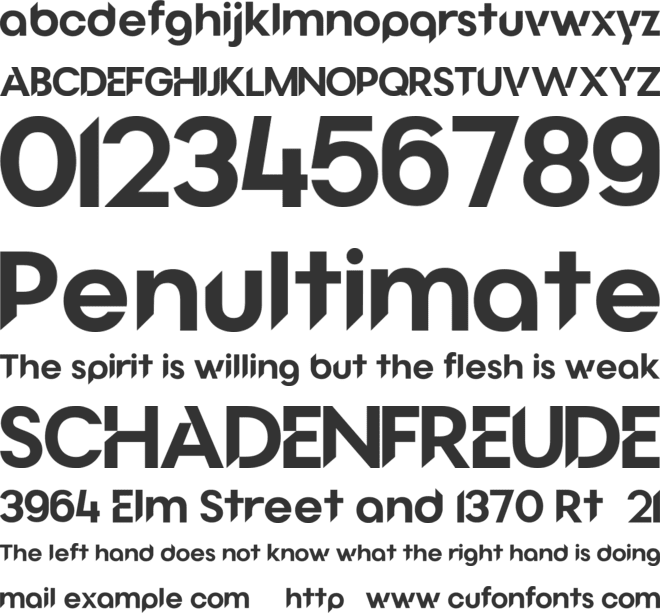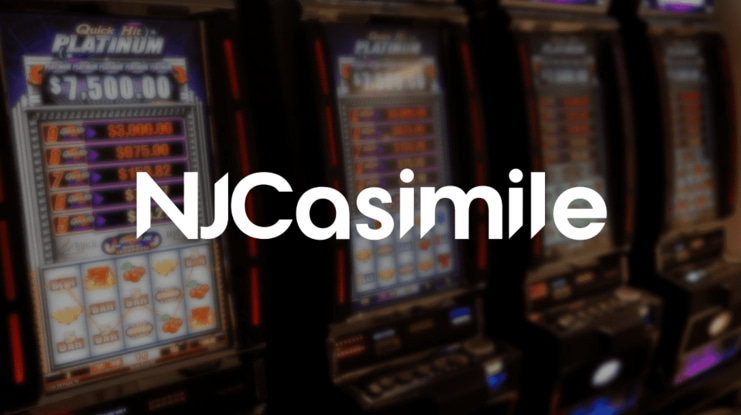
NJCasimile Bold Font
NJ Casimile Bold is a modern display font designed by Sadritsky. Its bold and eye-catching style makes it perfect for projects that require a strong visual impact, such as logos, headlines, posters and packaging designs. With its clean lines and elegant curves, NJ Casimile Bold is also suitable for editorial design, invitations and branding materials. This versatile typeface belongs to the larger NJ Casimile font family from https://njcasimile.com/ and is available in various weights ranging from light to bold. If you're looking for a contemporary font that will make your message stand out, NJ Casimile Bold might just be the perfect choice for you.